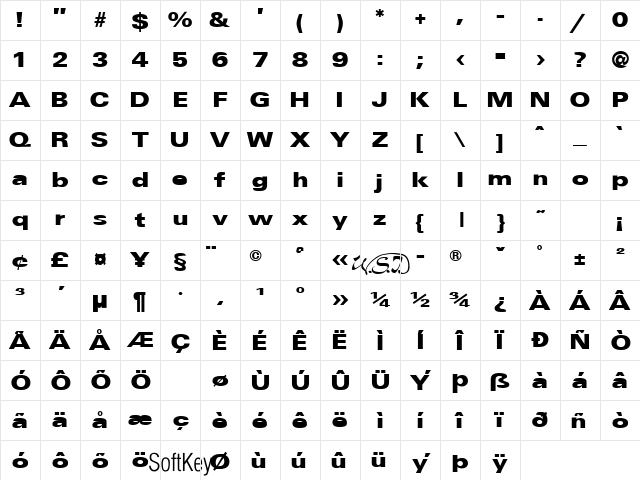
Universal Black Regular
Design Context for Universal Black
Universal Black is a composed and adaptable typeface that performs quietly and consistently across a wide range of design contexts.